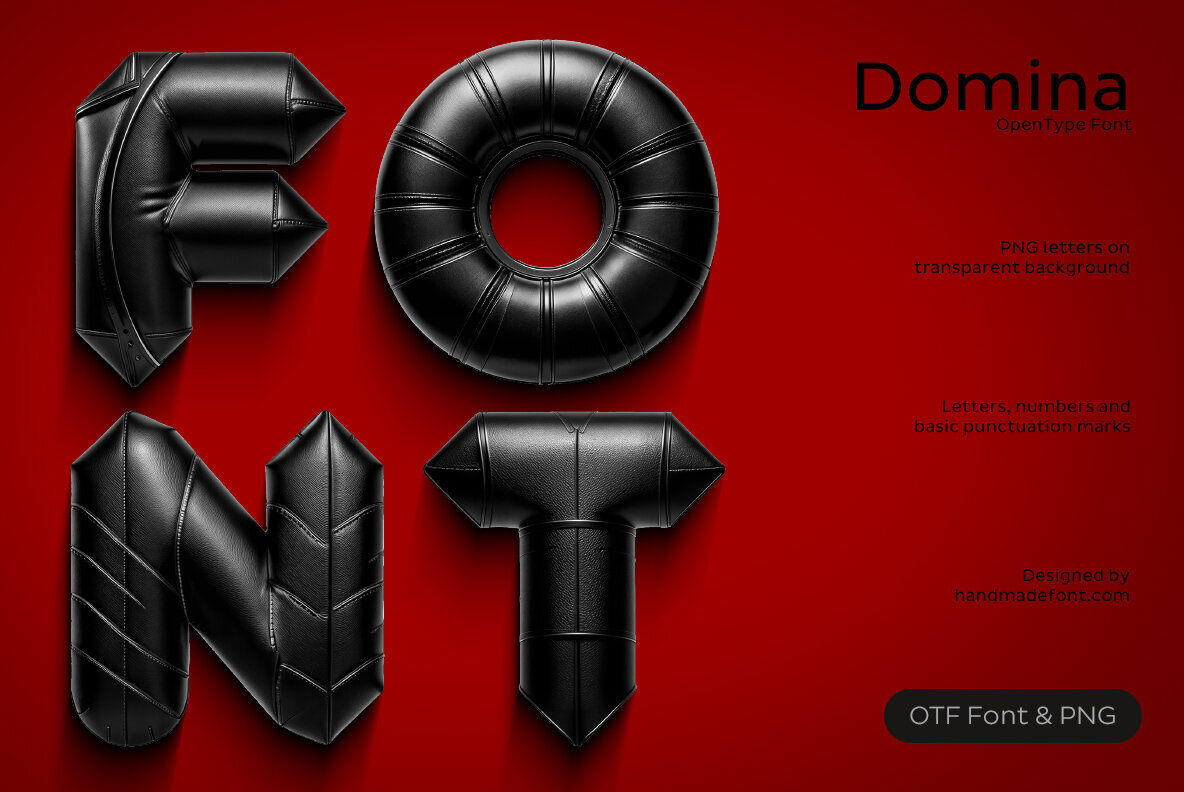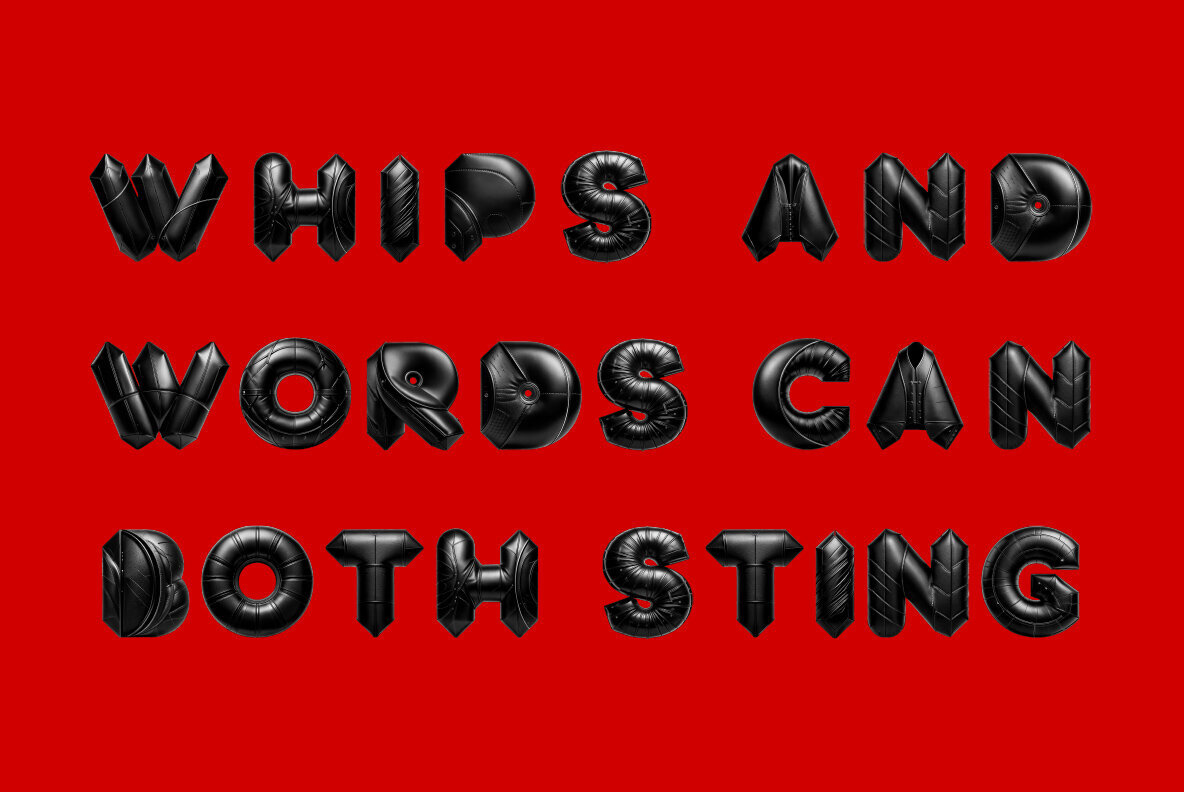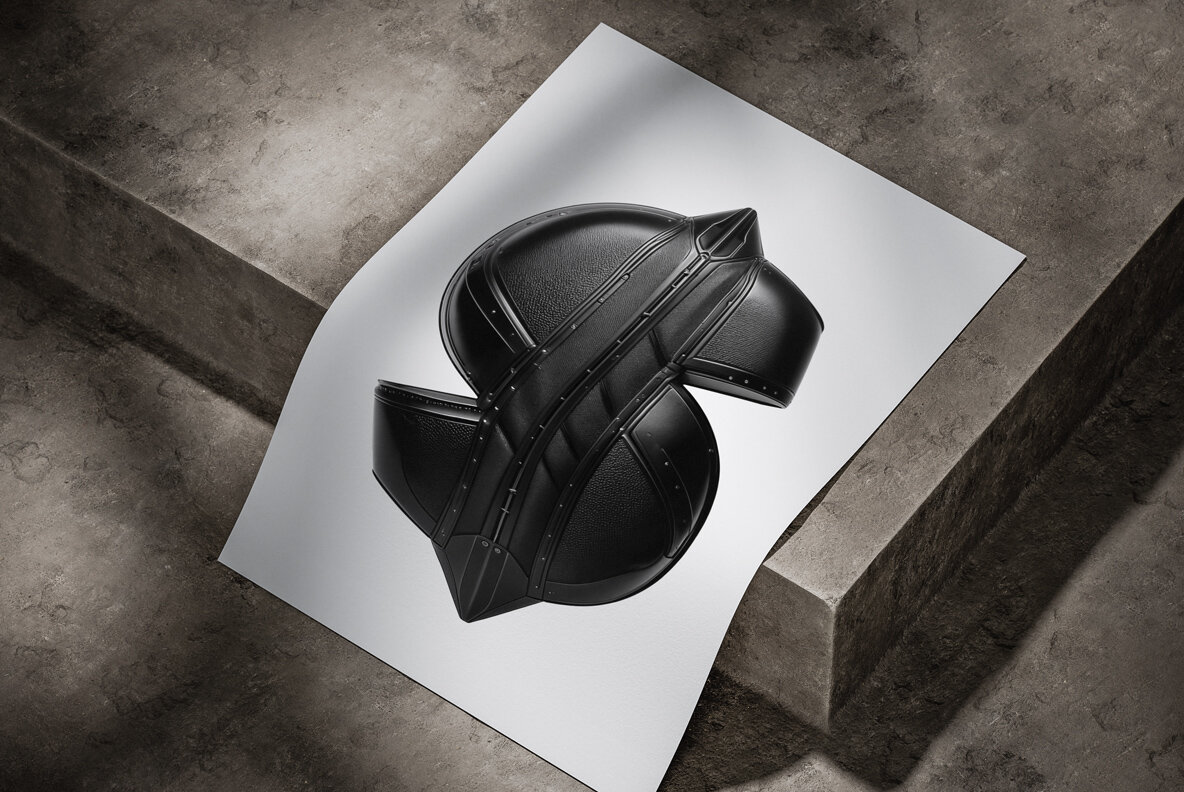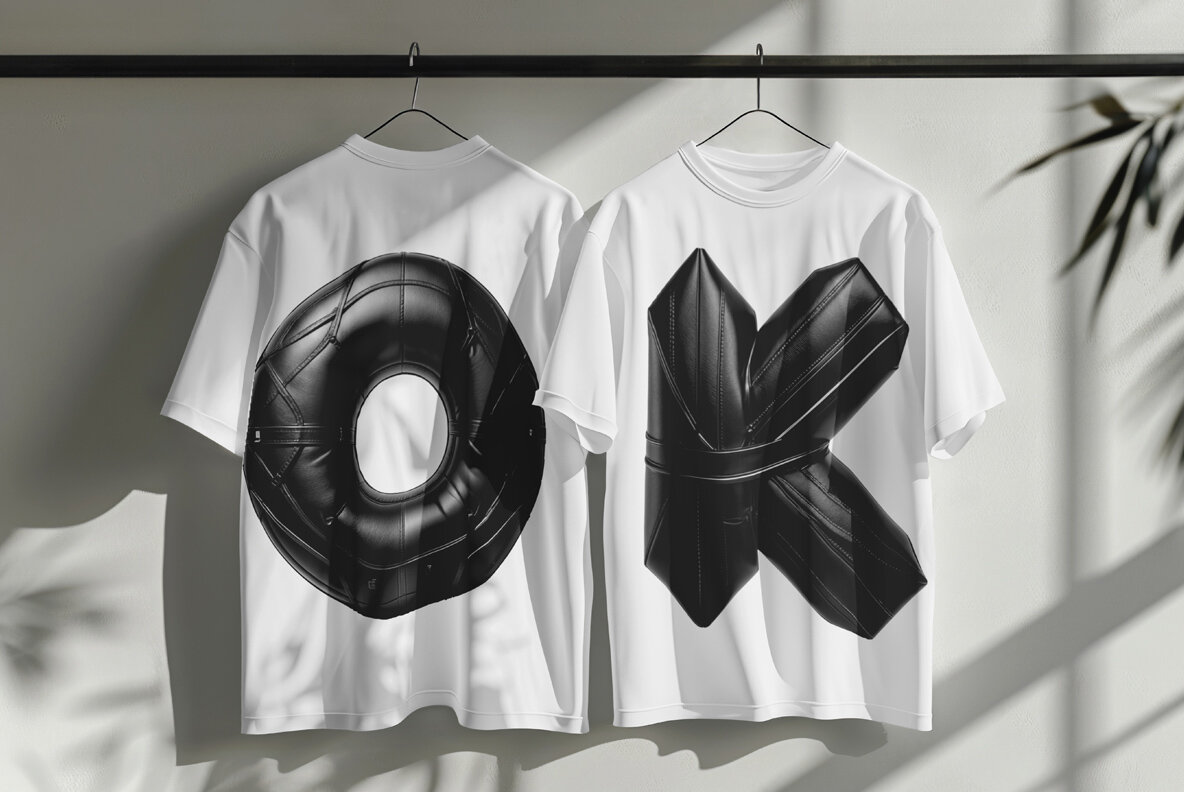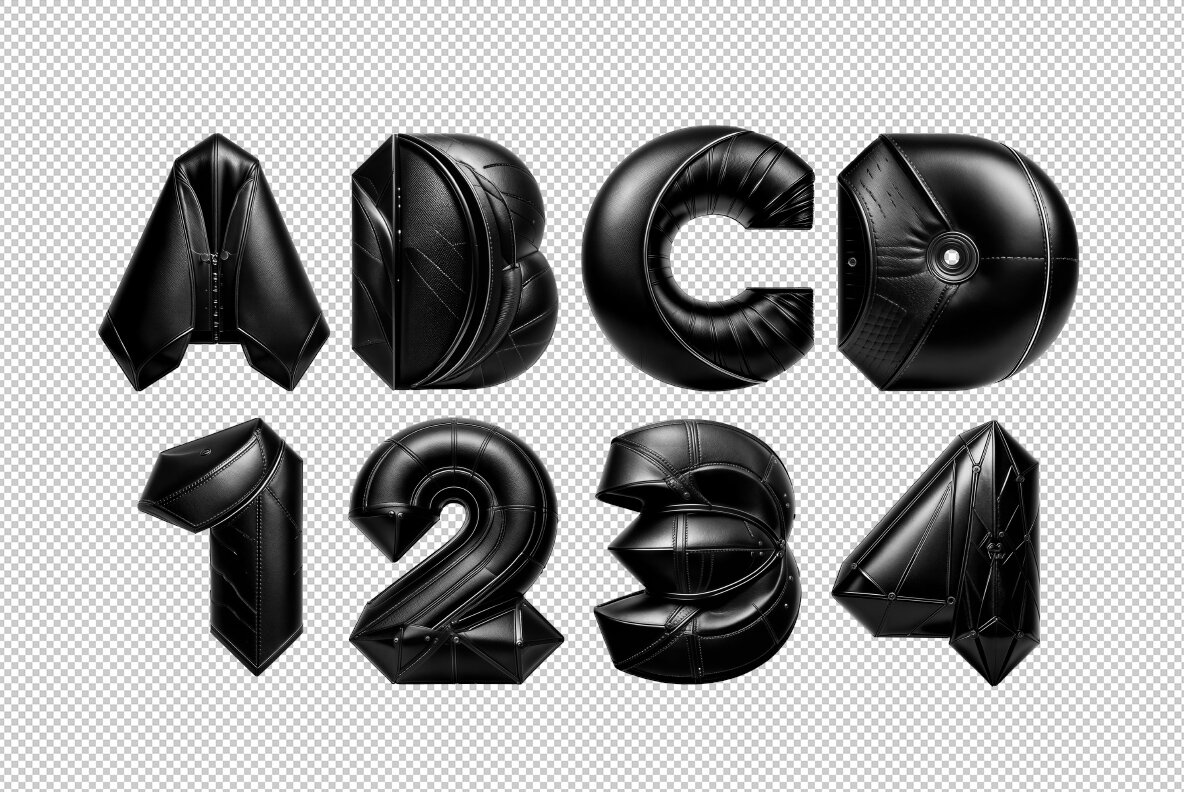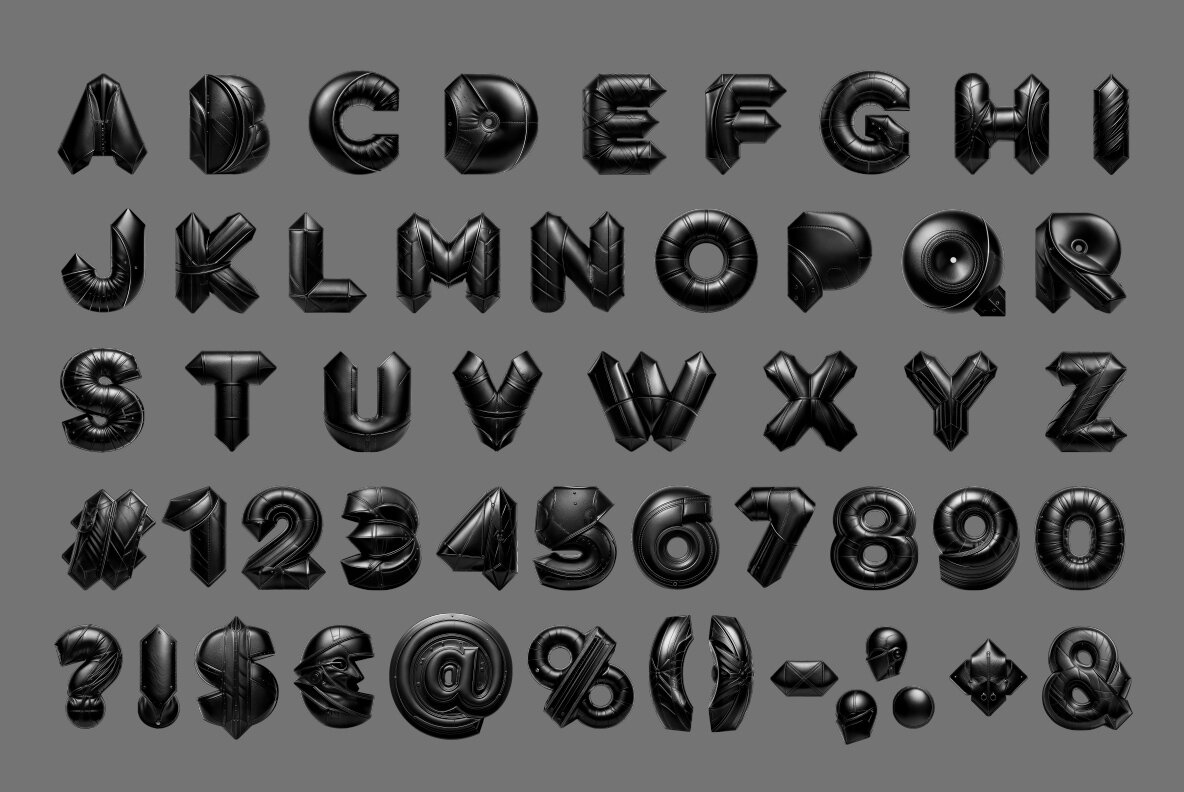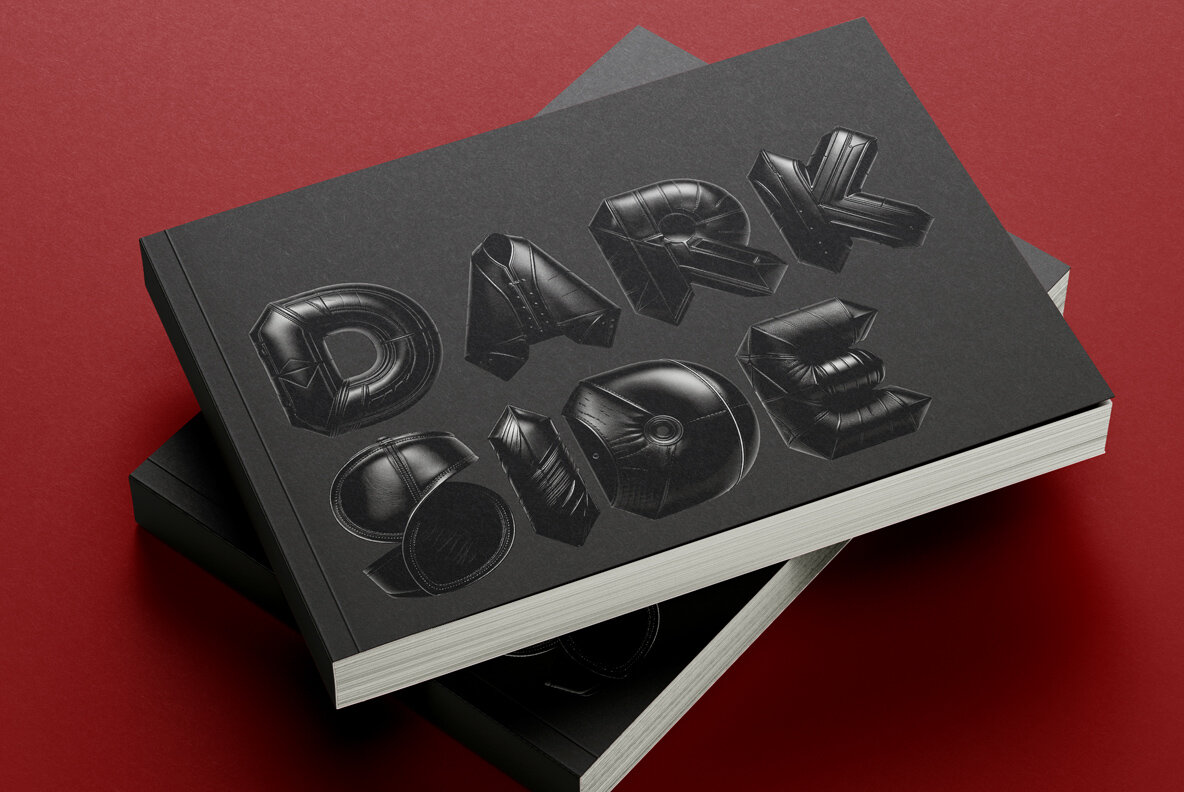
Domina Font is a bold, provocative typeface wrapped in high-gloss leather and stitched with attitude. Each character oozes fetish fashion flair—think latex catsuits, corseted curves, and dungeon-chic details. The letters are sculpted like wearable art: padded, zipped, and zipped tight. Born from the world of BDSM aesthetics, Domina Font is unapologetically sensual, with hints of dominance and power play in every glyph. It’s the perfect typographic tease for edgy branding, risqué posters, or anything that begs for a little taboo. Not just a font—it’s a visual safeword. Designed to seduce, command, and leave a lasting impression. A high definition OpenType Font. Contains uppercase characters, numerals and basic punctuation. (Draw height roughly 800 pixels). All letters and glyphs that comprises this font you can see on the preview. The font is a colour OpenType file which means this font will show up only in apps that are compatible with color bitmap fonts. Now that OpenType-SVG has been adopted as the industry standard, there is good chance that you can start using color fonts across your favorite software and hardware (Photoshop, Illustrator, InDesign, QuarkXPress, Keynote, PowerPoint, Word etc.) However all characters are also included as individual .png files which can be opened in any graphics software. Each letter comes as a separate PNG file on a transparent background. Each image has the high resolution size of 4000x4000px. This downloadable package contains 196 files. Letters : A B C D E F G H I J K L M N O P Q R S T U V W X Y Z Punctuation and Language Support. Due to the large nature of OpenType-SVG fonts, extended punctuation and language support are not included in the font files. However all punctuation characters and the following accents are included as individual image files in the .png letter set, which can be manually added to your text.